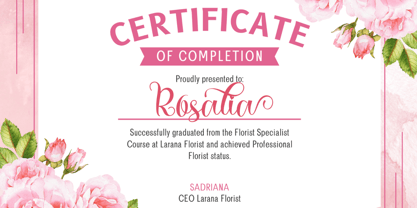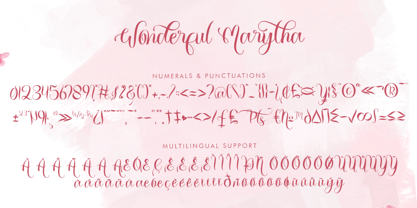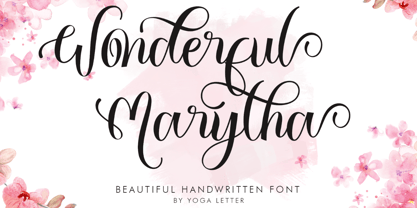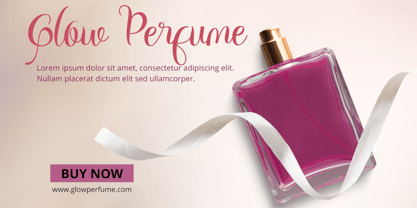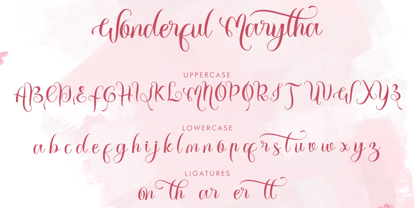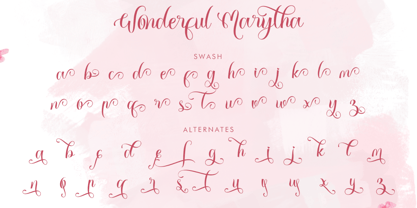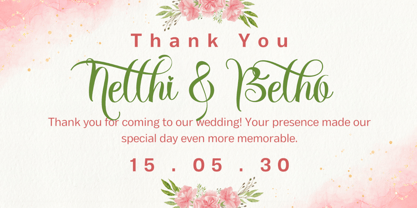
Wonderful Marytha
by Yoga Letter
The Wonderful Marytha Font Family was designed by Isroni Yoga Prasetya and published by Yoga Letter. Wonderful Marytha contains 1 styles. More about this family
"Wonderful Marytha" is a beautiful and unique handwritten font. It features uppercase and lowercase letters, ligatures, numbers, punctuation, multilingual support, alternates, and swashes. It's perfect for invitations, weddings, certificates, business branding, Christmas, Christmas greetings, fall, Halloween, winter, Valentine's Day, weddings, social media, and more.